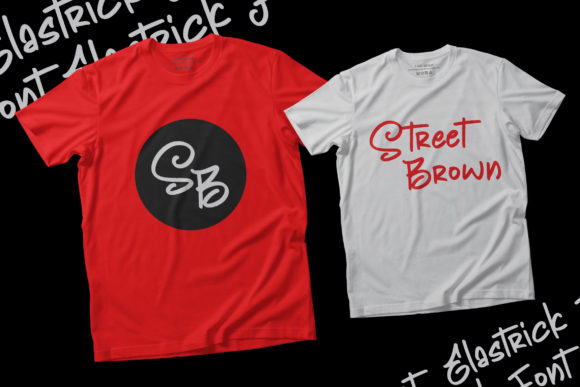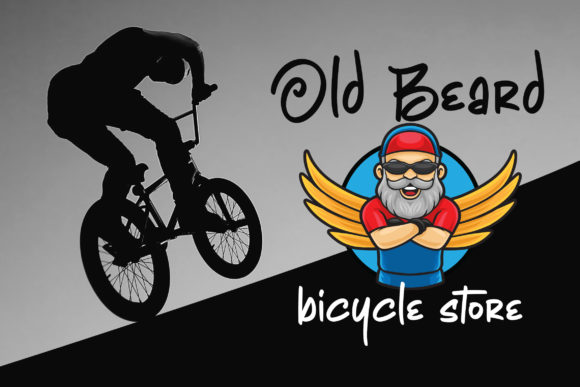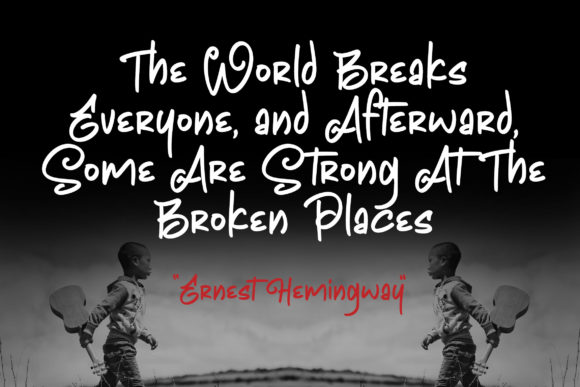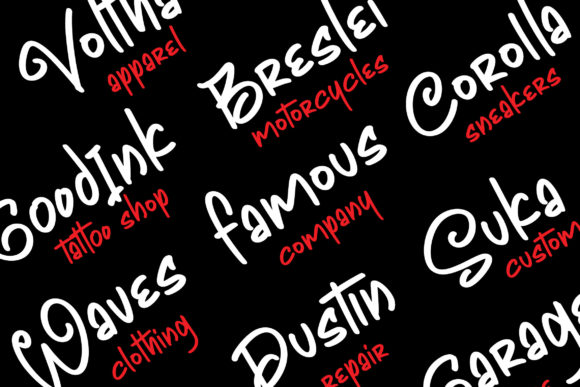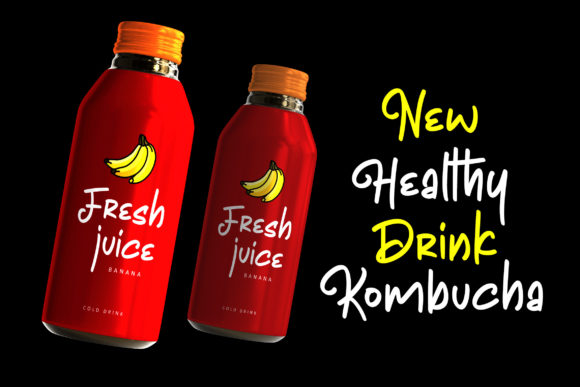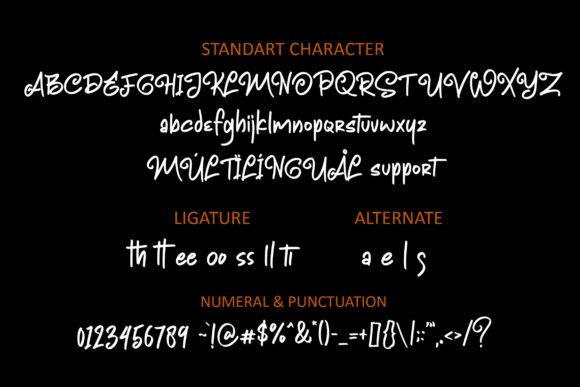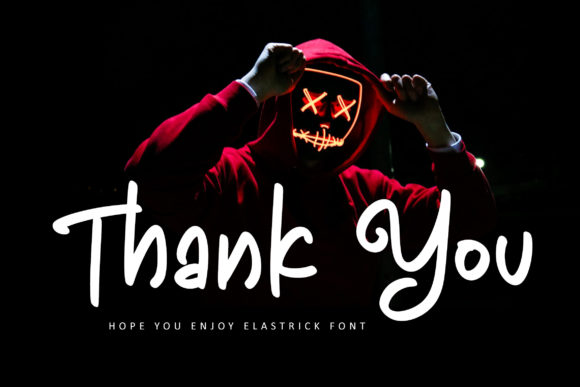
Elastrick Font
About Elastrick Font
Elastrick is a cool, casual and urban styled display font. This font is suitable for designs such as t-shirts, sportswear, logos, advertisements, clothing, and more.